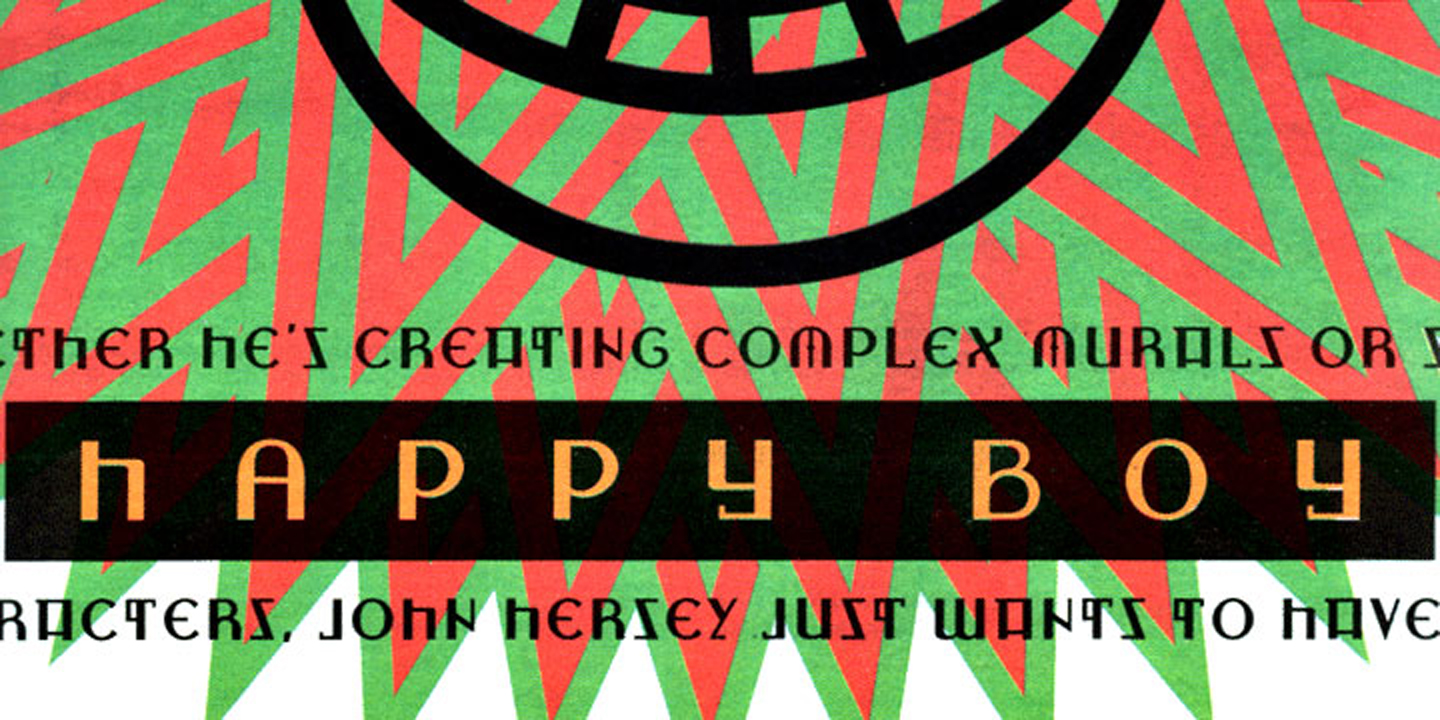
Zagora Bold
Zagora™, based on an art deco design (original typeface name and designer unknown), is named for a small Moroccan town on the border of the Sahara desert, where a billboard at the edge of a great expanse of sand points the way to Timbuktu. For whatever reason, while working on this font, I was reminded of Morocco and that wonderful little town.
The font poster above is from the cover of Online Design magazine; John Sullivan, Creative Director.